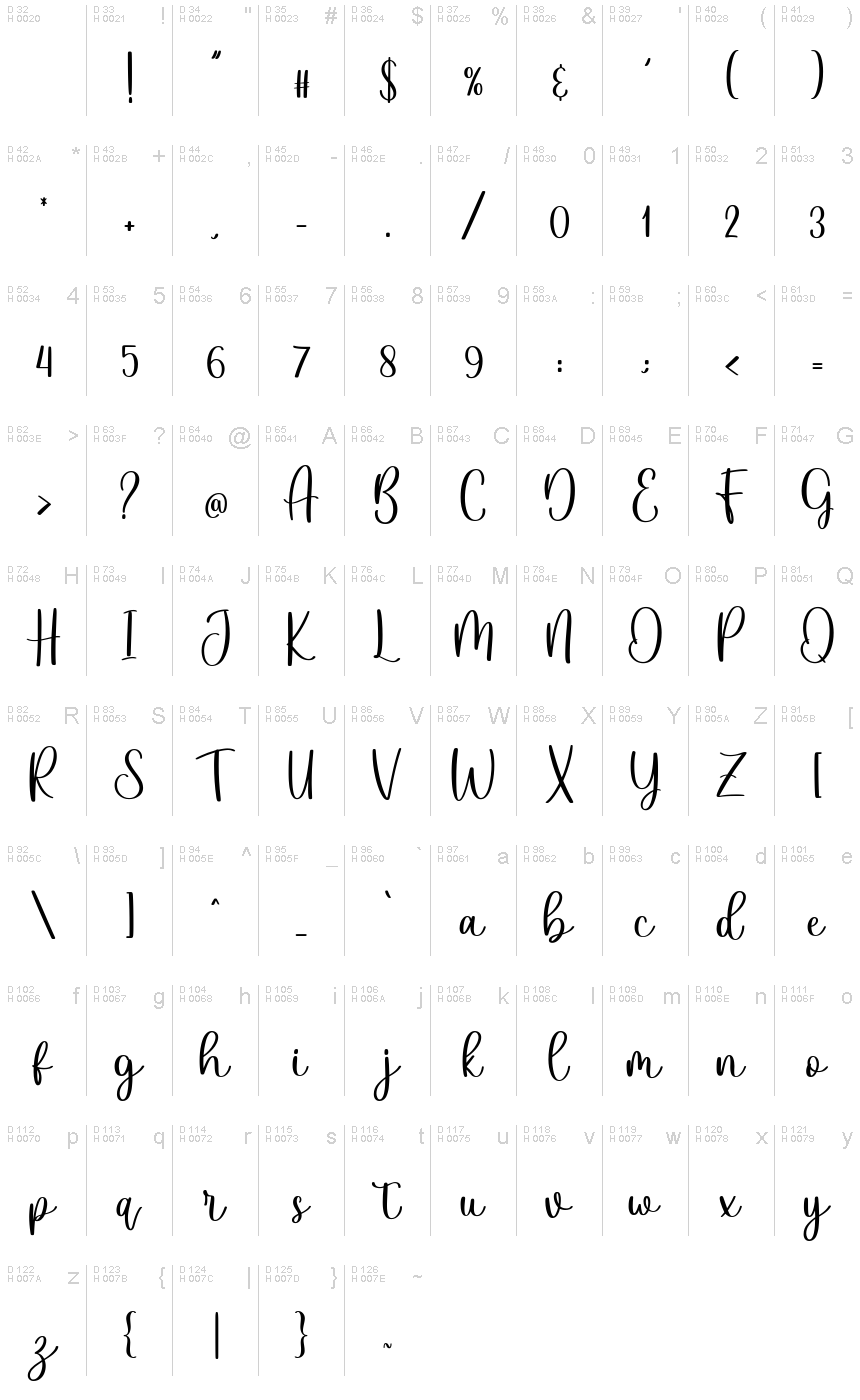
Graphy, designed by Makashi, is a semi-light handwritten font that exudes a balance of personal touch and elegant simplicity. Its fluid, cohesive strokes capture the essence of handcrafted artistry while maintaining a refined structure that lends itself to readability and aesthetic appeal. The semi-light weight of Graphy ensures that it remains both distinctive and subtle, making it an ideal choice for designers seeking to add a humanistic element to their projects without overwhelming other design elements.
This font's charm lies in its versatility; whether it's for branding, invitation cards, or editorial content, Graphy's style harmonizes with various design landscapes. It strikes the perfect chord between casual and professional-making it well-suited for creative endeavors that require a blend of approachability and sophistication. Embrace the unique character of Graphy to breathe life into your creative visions with its stylishly scripted allure.